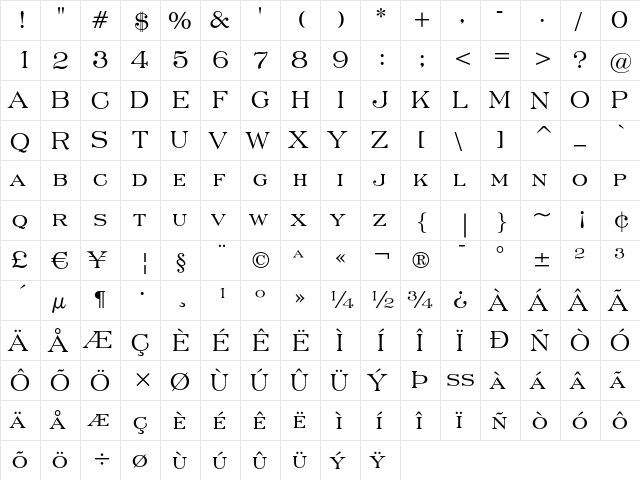
Engravers' Roman Regular
Design Context for Engravers' Roman Typeface
Engravers' Roman offers clean, dependable letterforms without strong stylistic allegiance, making it a practical choice for designers who need flexibility.